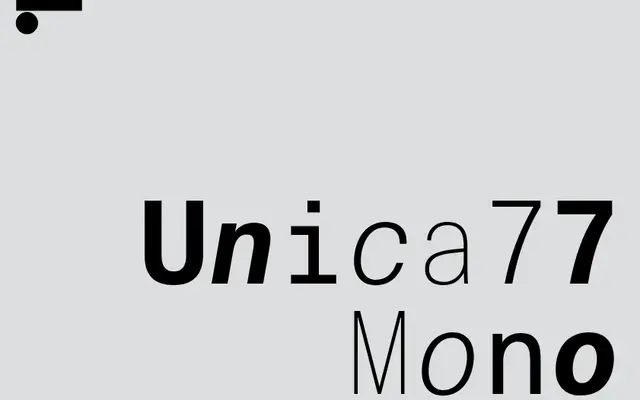
LL Unica77 Mono
Lineto · Christian Mengelt / Team'77 · 2019
A monospaced extension of Haas Unica by Christian Mengelt, authorised by Team'77 and released by Lineto in 2019 with an optional low caps variant.
Developed by Mengelt three decades after the original Haas Unica (1980), the Mono carries the same Swiss neutrality into fixed-pitch settings suited to technical data, captions and code. Four weights with italics are offered, each available in both standard and low caps styles, the latter featuring shortened uppercase letters that lend a sleeker texture at small sizes. An early customised version with extended x-heights was used for the Alphabet Berlin website in 2014, with the public release following in 2019.
A monospaced companion to the grotesque LL Unica77, derived from the fixed-width construction principles that echo the typeface's Swiss neutrality; retains the proportions and character of the parent grotesque in a fixed-pitch format.